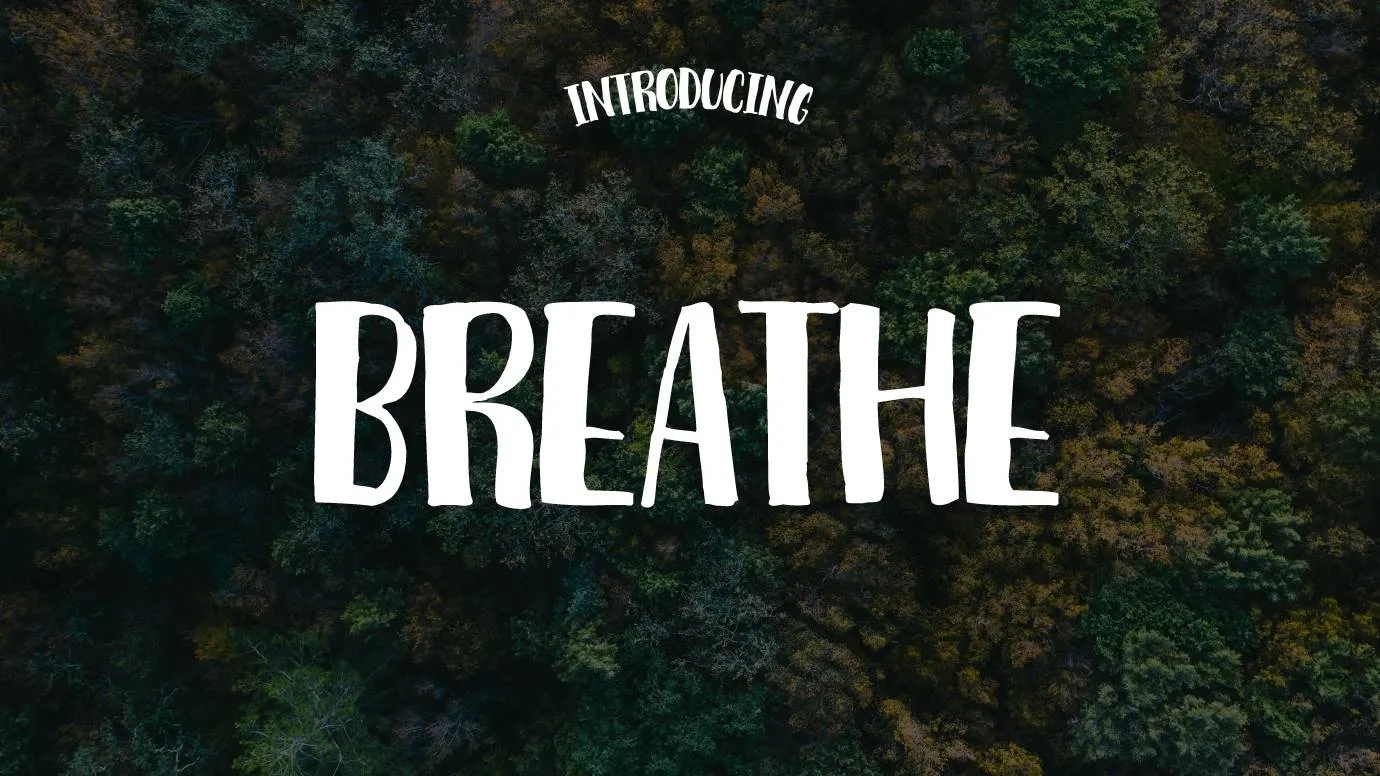
Breathe Font Family is a unique display font known as Breathe Font. Maximiliano R. Sproviero is a brilliant mind designer who works hard on the creation of this typeface. After completing its creation this typeface was finally released through Lián Types. The OTF and TTF formats are suitable for use in bold display design purposes. Due to the high-quality design of this font, you can use it for outstanding feature designs.
A number of languages support this typeface that’s why its features are so popular all over the world. This font family is suitable for making pairing with avengeance heroic avenger font which is the perfect alternative to this amazing typeface.
Features of Breathe Font
- You can use this display font for different types of post designs, photography designs, stationery designs, and branding various tasks.
- This font is suitable for website tags, Youtube video designs, theme designs, blog template designs, and different kinds of advertisement purposes.
- This outstanding font is perfect for general report designs, ebook cover designs, digital printing designs, and many other related purposes.
- You can utilize this amazing typeface for postcard designs, greeting card designs, and text overlay designs on images. It is mostly used for invoice design purposes.
- It is perfect to use for branding products, humorous bodies, general records, and various documentation purposes. The designer can pick this font for homeware designs, app development designs, reader designs, and so on.
What kind of font is Breathe Font?
Breathe typeface was designed by MediaLab that comes in display with unique bold and extra bold weights.
Is there any similar font to Breathe Font?
This typeface has many similar fonts but caroos font is the perfect alternative to this amazing unique look typeface.